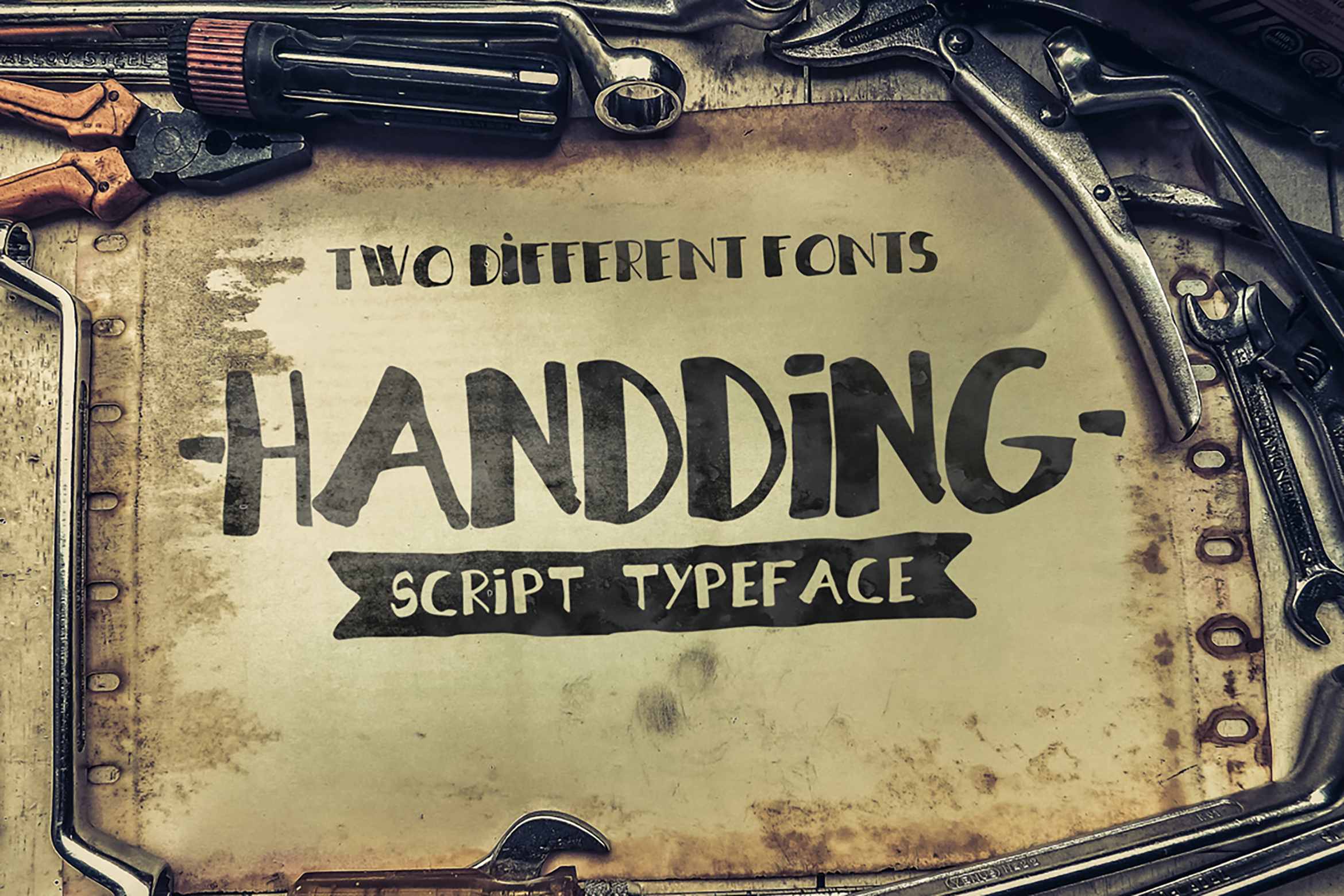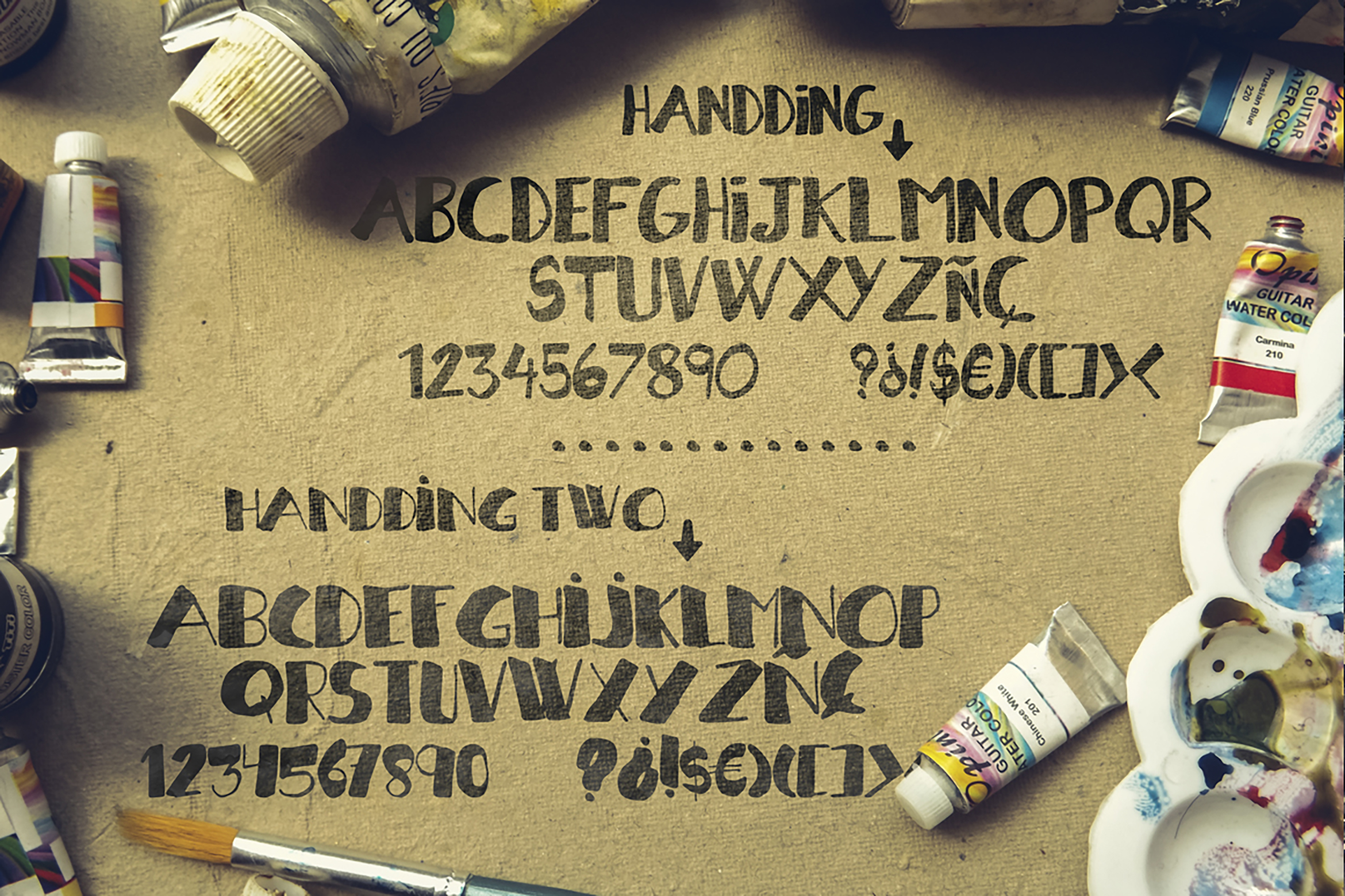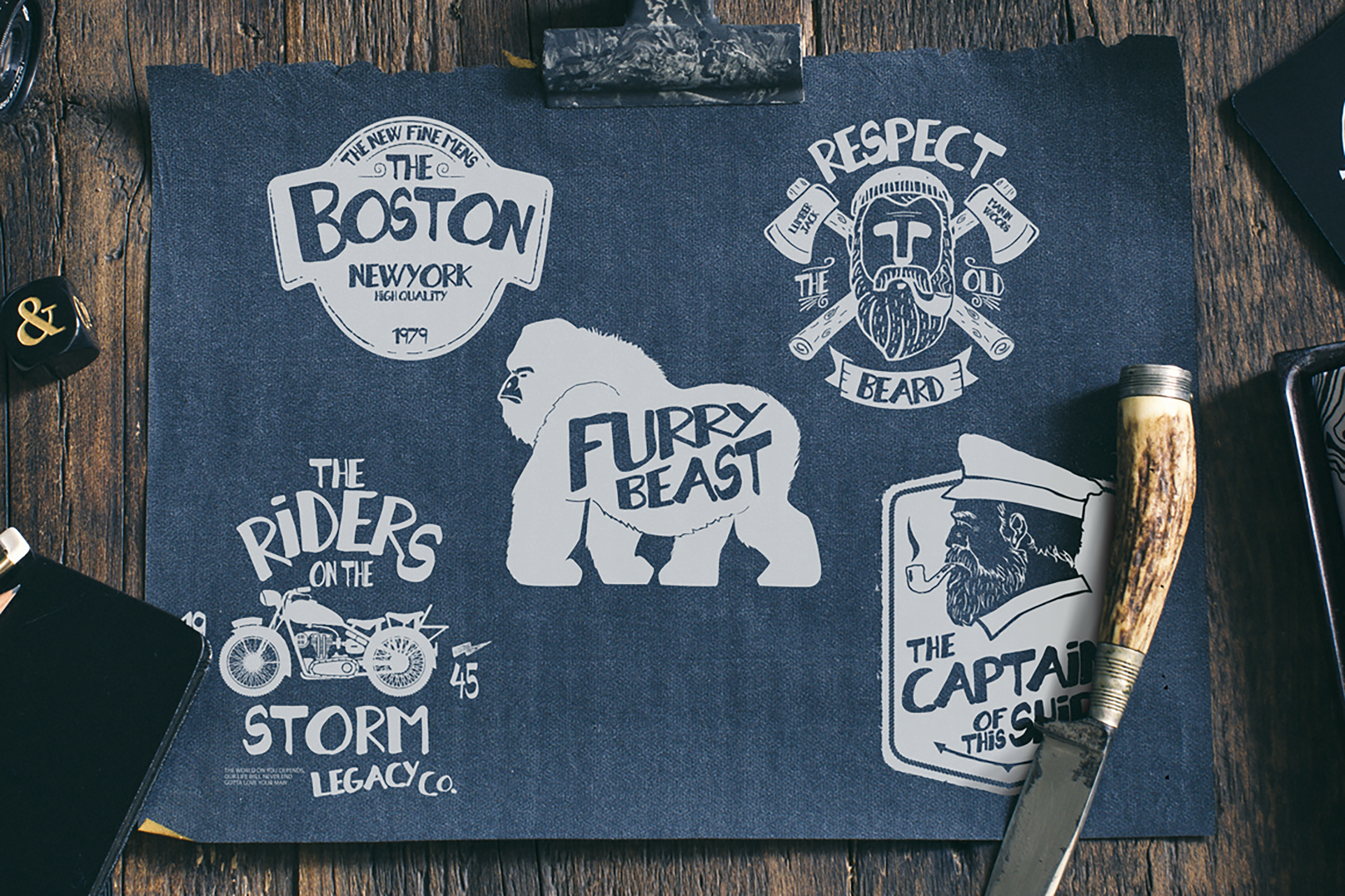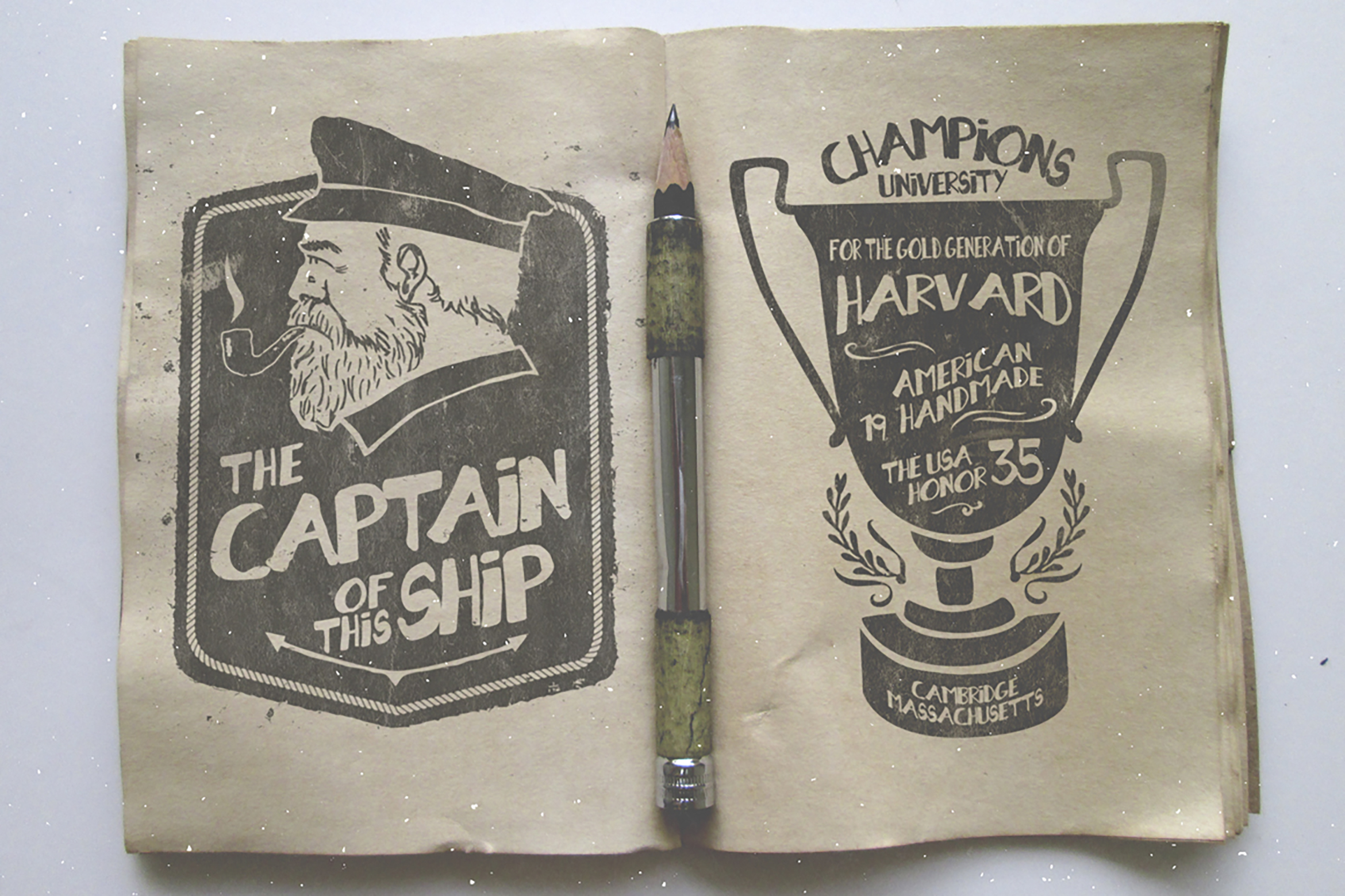
Handding is an all upper-case script typeface that is perfect for headlines or whenever you need something to stand out!
All uppercase. All letters. All punctuation. All numbers. Meant to be the headline & stand out!
Two different styles